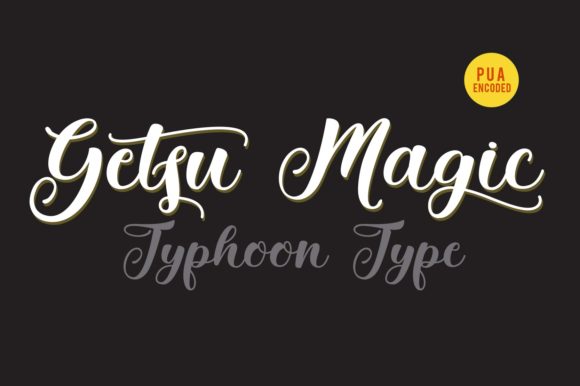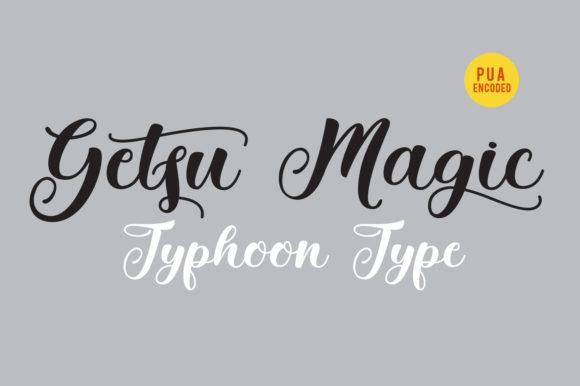
HomeScript FontsGetsu Magic Font Script Fonts Getsu Magic Font FacebookXPinterestWhatsApp Getsu Magic Font Poster 2 About Getsu Magic Font Getsu Magic is a beautiful and strong handwritten font with a bold authentic touch! DOWNLOAD ON CREATIVE FABRICAThis font is sold and delivered by Creative Fabrica. Font Canyon may earn a commission if you buy through this link. People also explored Mighty Side Font The Brixton Collection Darlina Font Starlight Font Andantino Highdream Font Malihini Cuban BTN Melodia Font Chilhood Font 291 0 TagsGetsu Magic Font Previous articleChipoky FontNext articlePandawa Font LEAVE A REPLY Cancel reply Comment: Please enter your comment! Name:* Please enter your name here Email:* You have entered an incorrect email address! Please enter your email address here Website: Save my name, email, and website in this browser for the next time I comment. Personal Use Free Huntry Personal Use Free Read more about this font Pompom Personal Use Free Read more about this font Wondery Personal Use Free Read more about this font Masha Song Personal Use Free Read more about this font BLOG Top 7 Google Fonts Alternatives for Faster and Privacy-Friendly Web Design (2025) Top 7 Google Fonts Alternatives for Faster and Privacy-Friendly Web Design (2025) When it comes to web typography, Google Fonts has long been the go-to... Free vs Paid Fonts: Why Investing in Premium Fonts Is Worth It Free Fonts Risk: Why Free Fonts Can Be Dangerous for Designers Transform Your Website: Elevate Your Typography with 7 Best Web Font Generators